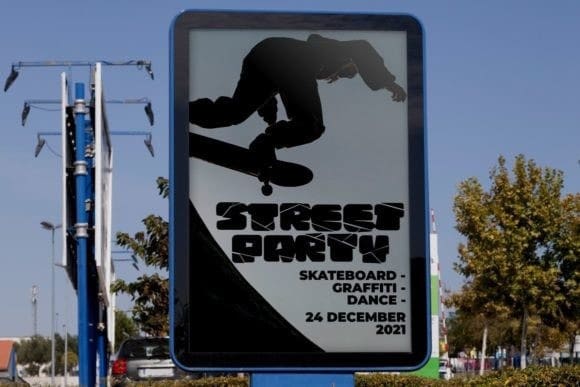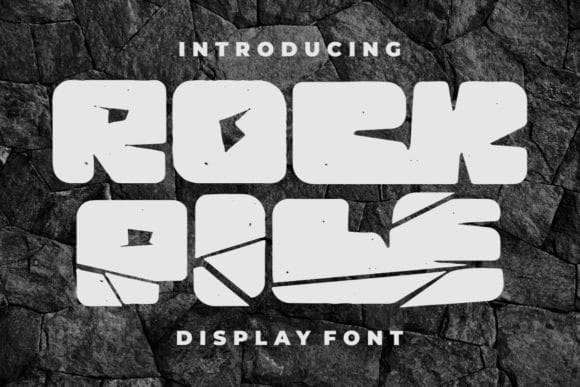
Rock Pile Font
Rock Pile Font, is a bold and assertive display font. Contemporary and fresh, it is perfect for any design you wish to create. Add it to your creative projects and make them outstanding! This font is PUA encoded which means you can access all the glyphs and ligatures with ease!